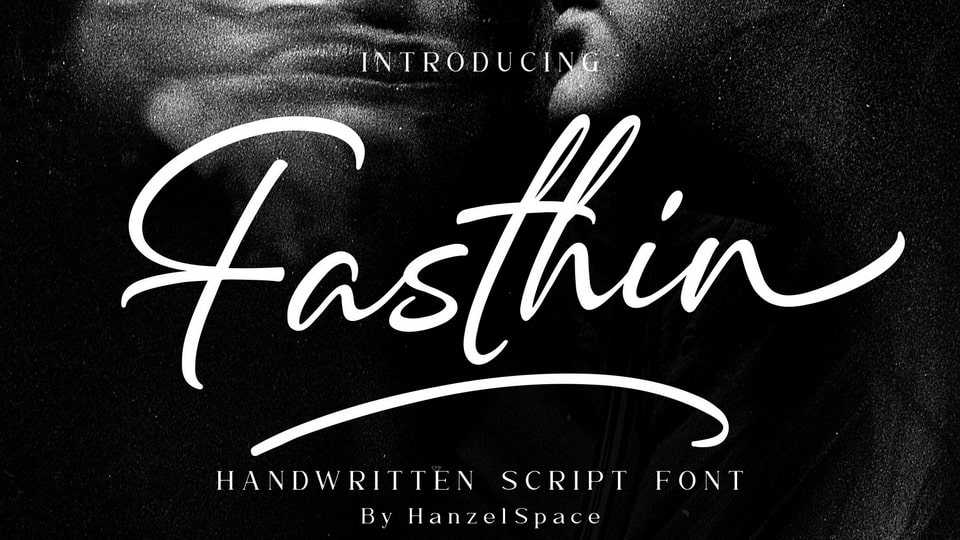
Download Fasthin font, a handwritten script typeface that has own unique style & modern look. This font is perfect for an elegant and luxury logo, book or movie title design.